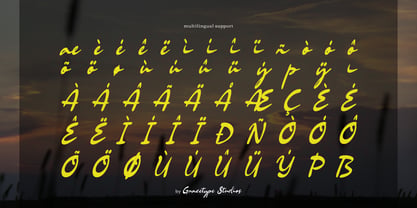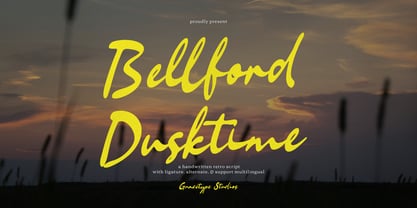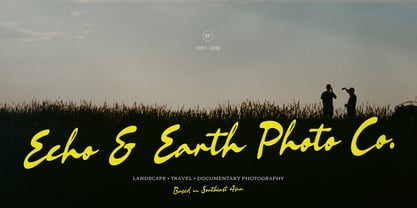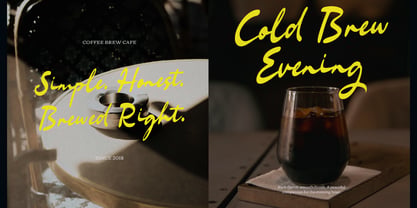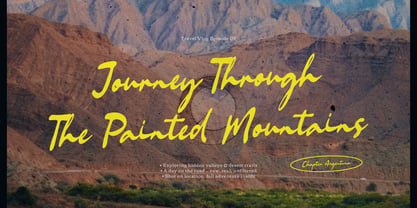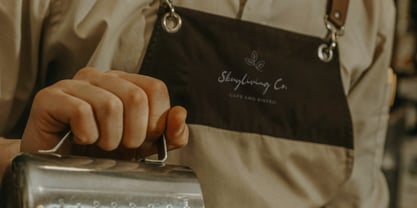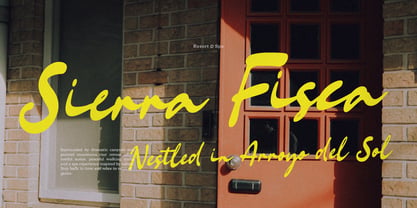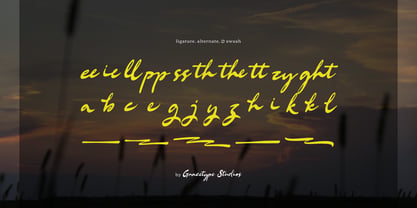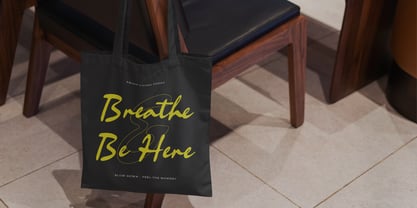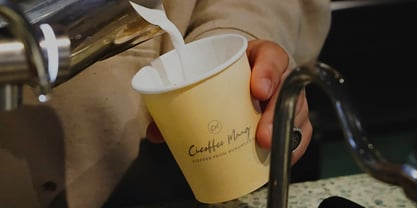
Bellford Dusktime
Bellford Dusktime | Retro Script, from Gracetypestudio, suitable for any projects such as: logos, branding projects, homeware designs, product packaging, mugs, quotes, posters, shopping bags, t-shirts, book covers, name card, invitation cards, greeting cards, label, photography, watermark, special events, and all your other lovely projects that need a Script taste.